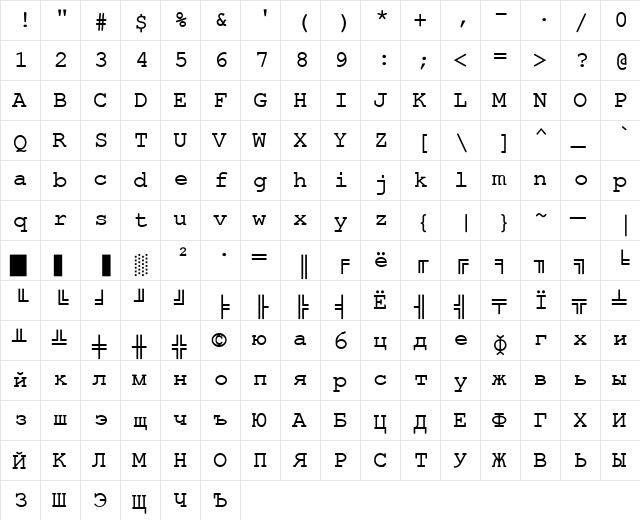
ER Kurier KOI8-R Regular
Design Context for ER Kurier KOI8-R Typeface
ER Kurier KOI8-R takes a measured approach to typography — its balanced proportions and neutral character make it a reliable workhorse for both digital and print work.